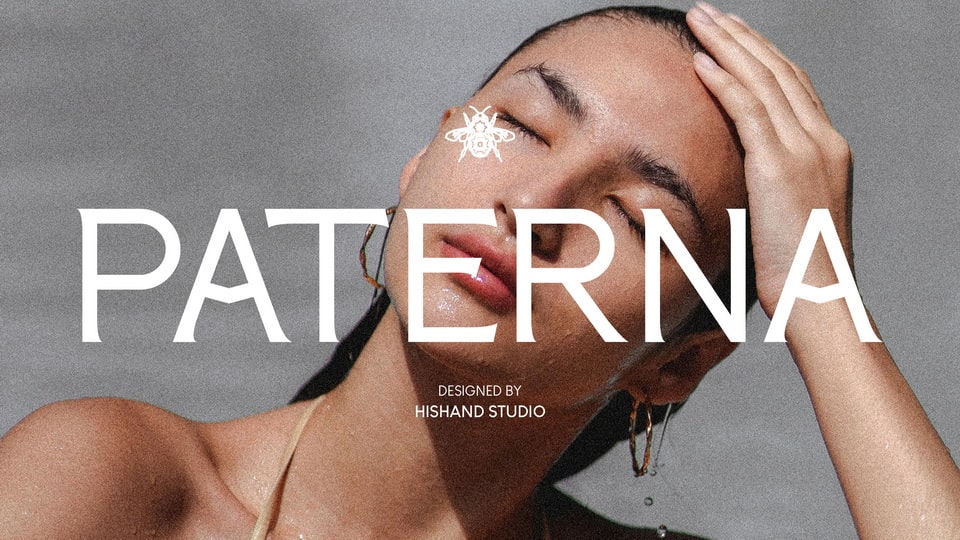
Download Paterna font, a newly released serif display typeface that exudes effortless elegance and refined sophistication. Its carefully crafted letterforms marry classic serif traditions with modern flair.